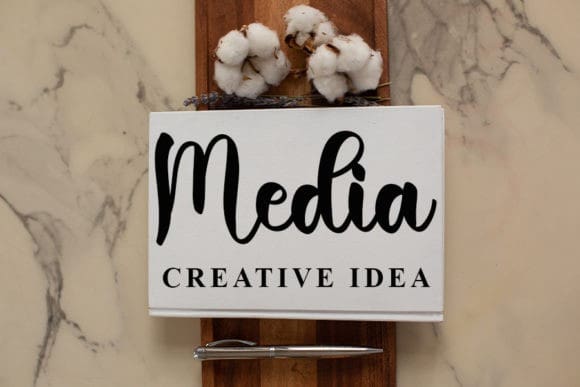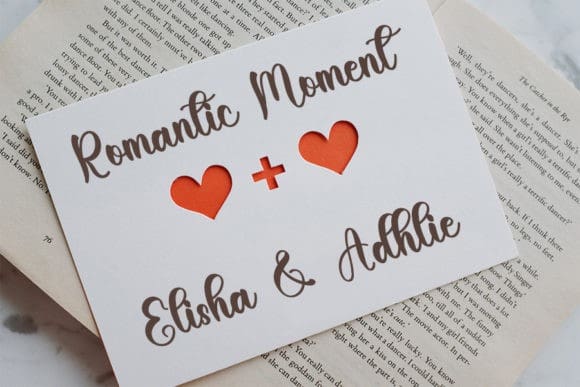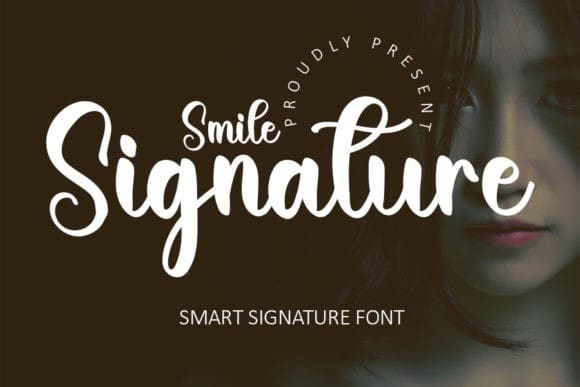
Smile Signature Font
Smile Signature Font is a stylish handwritten font with a contemporary atmosphere and impeccable form, inspired by a timeless classic calligraphy. This font is PUA encoded which means you can access all glyphs and swashes with ease!